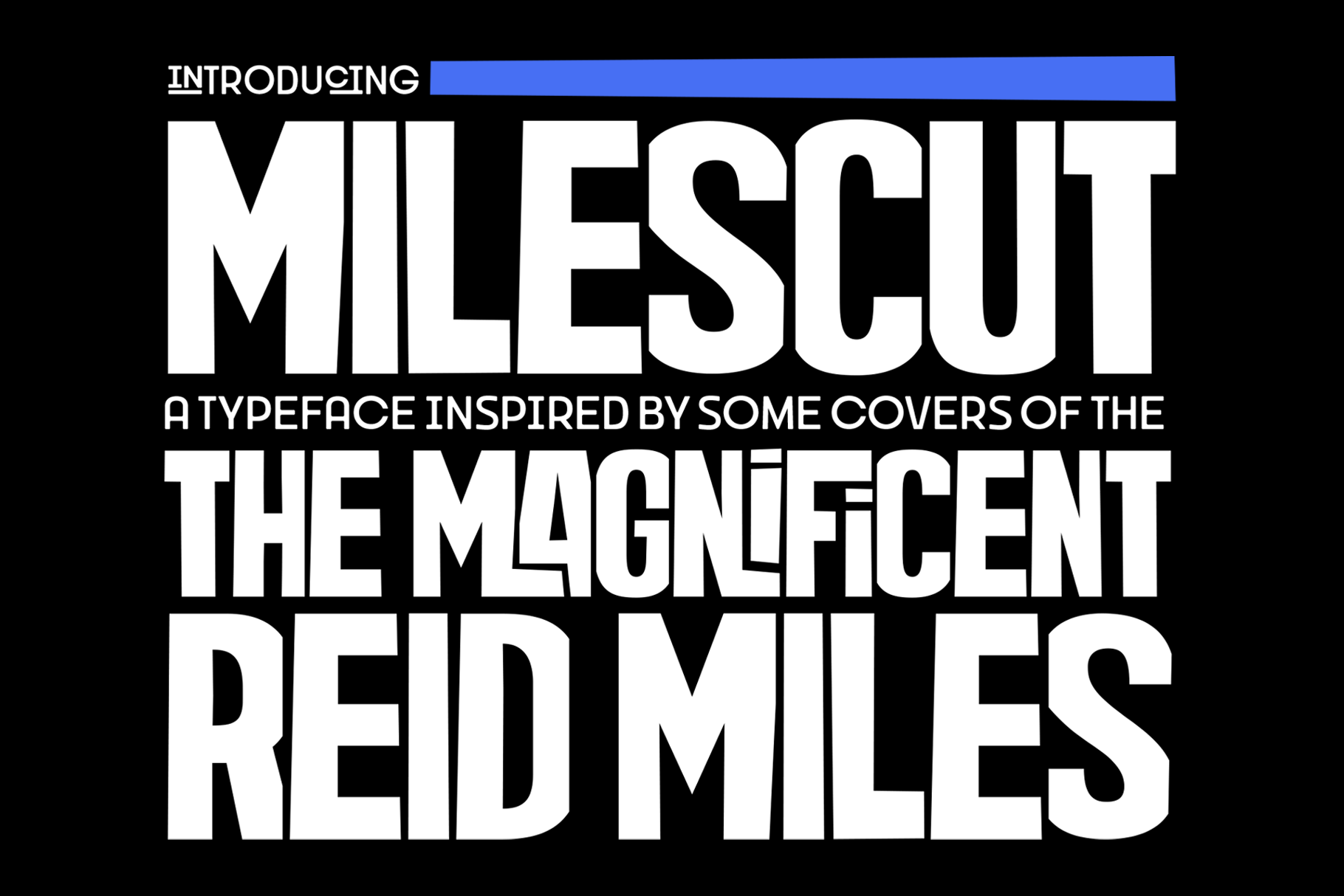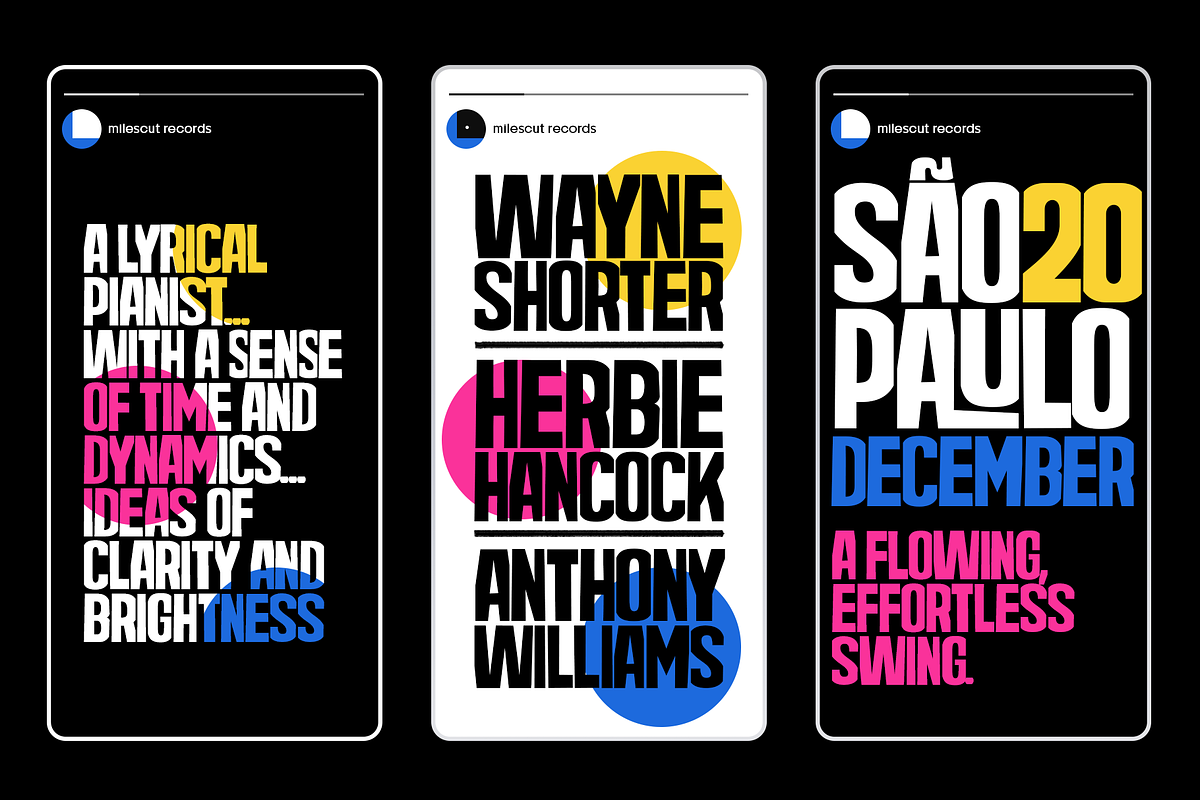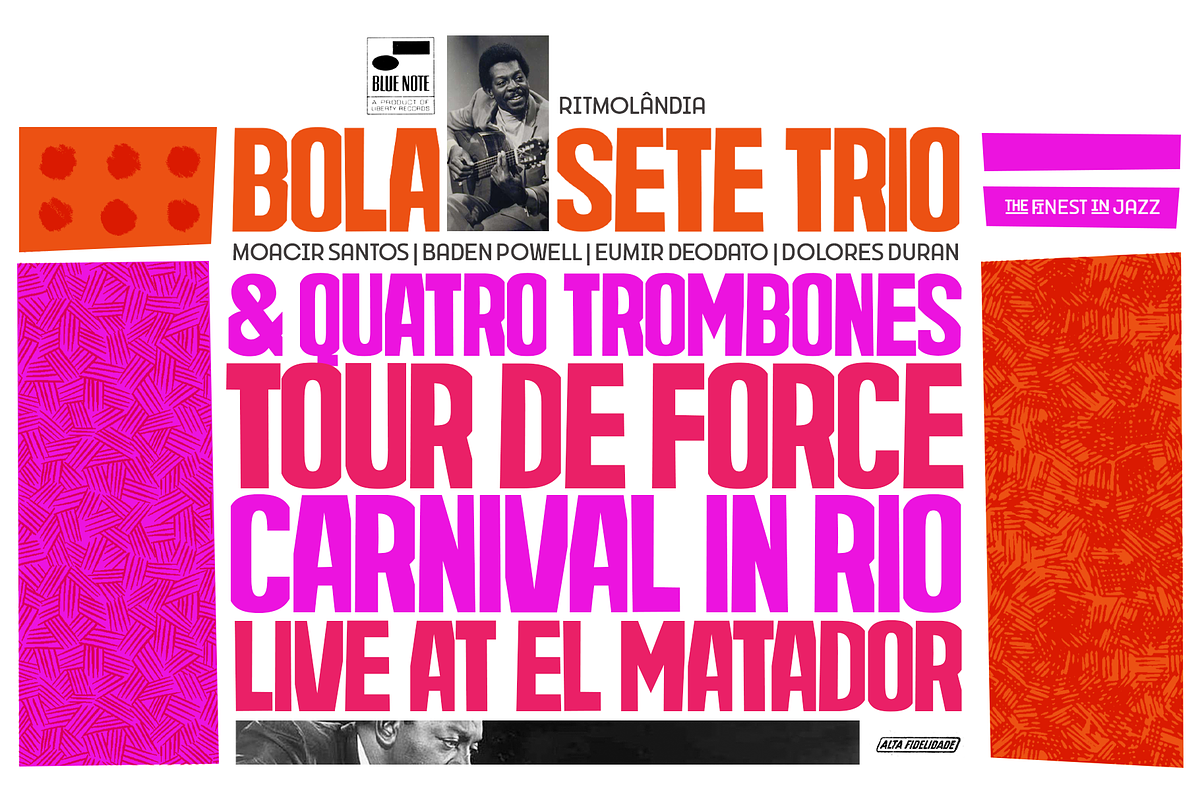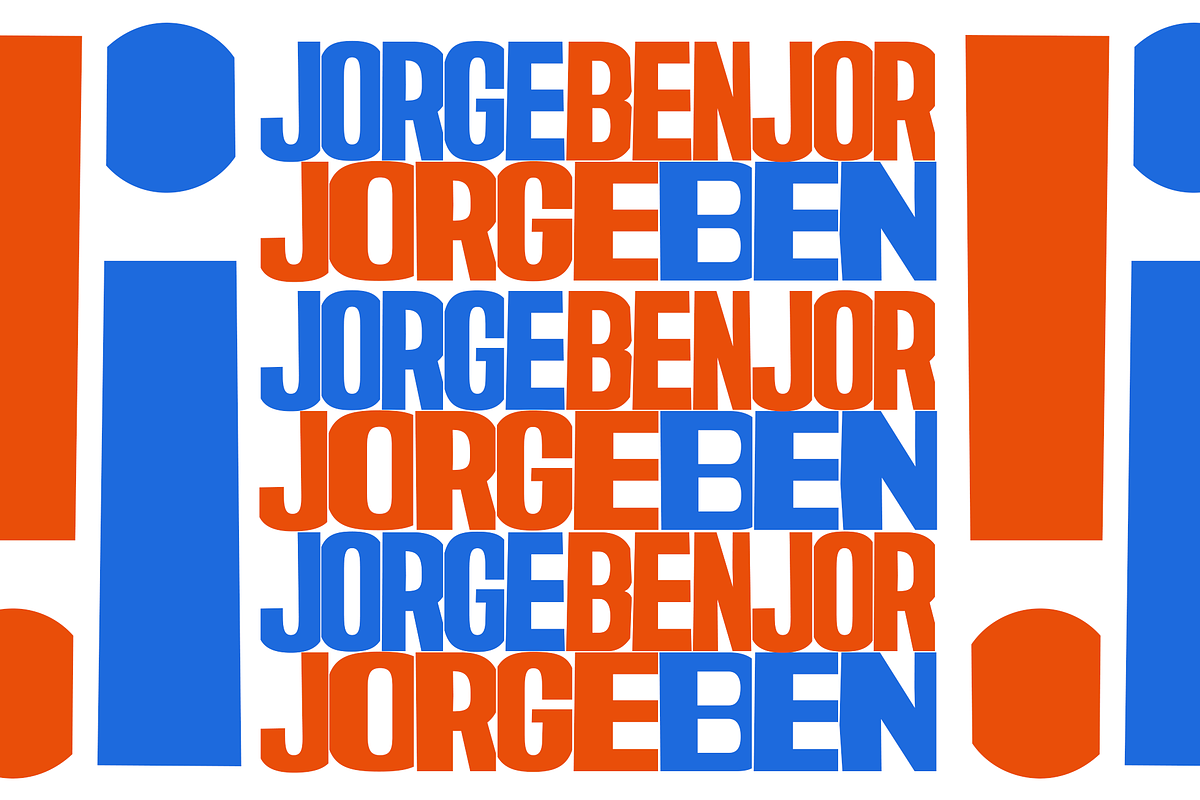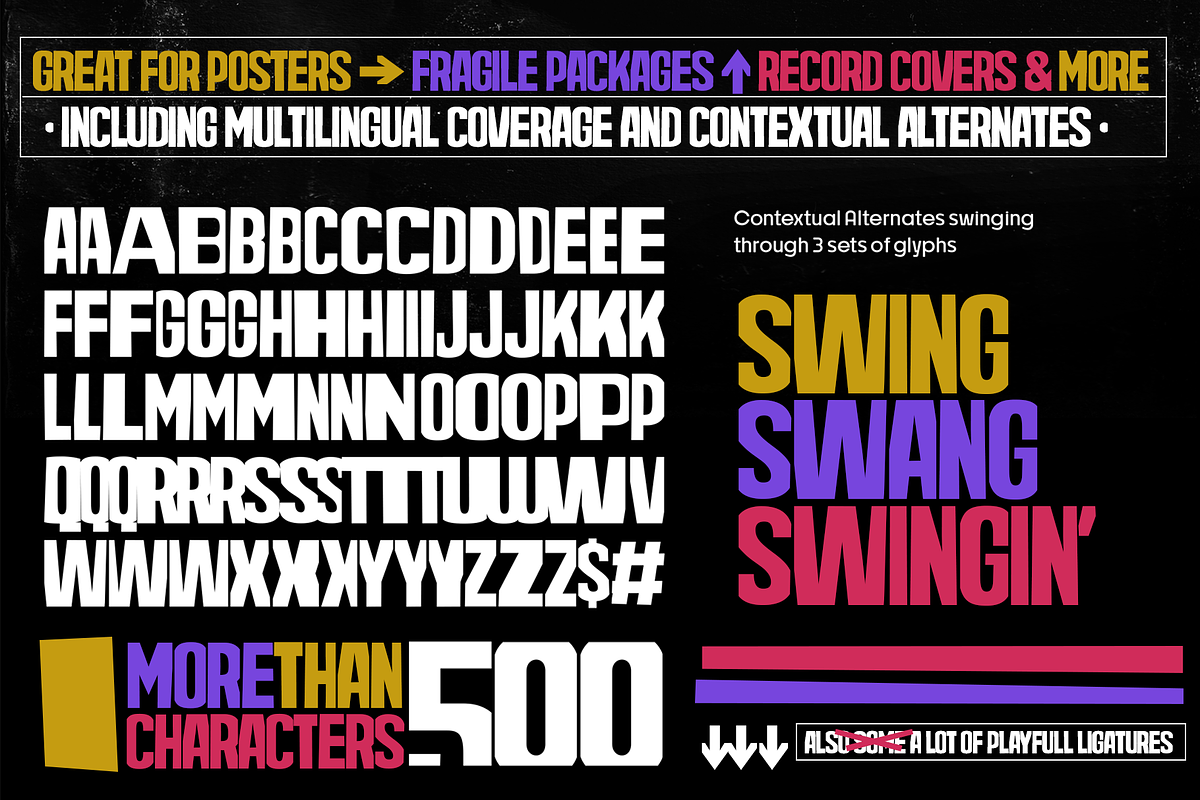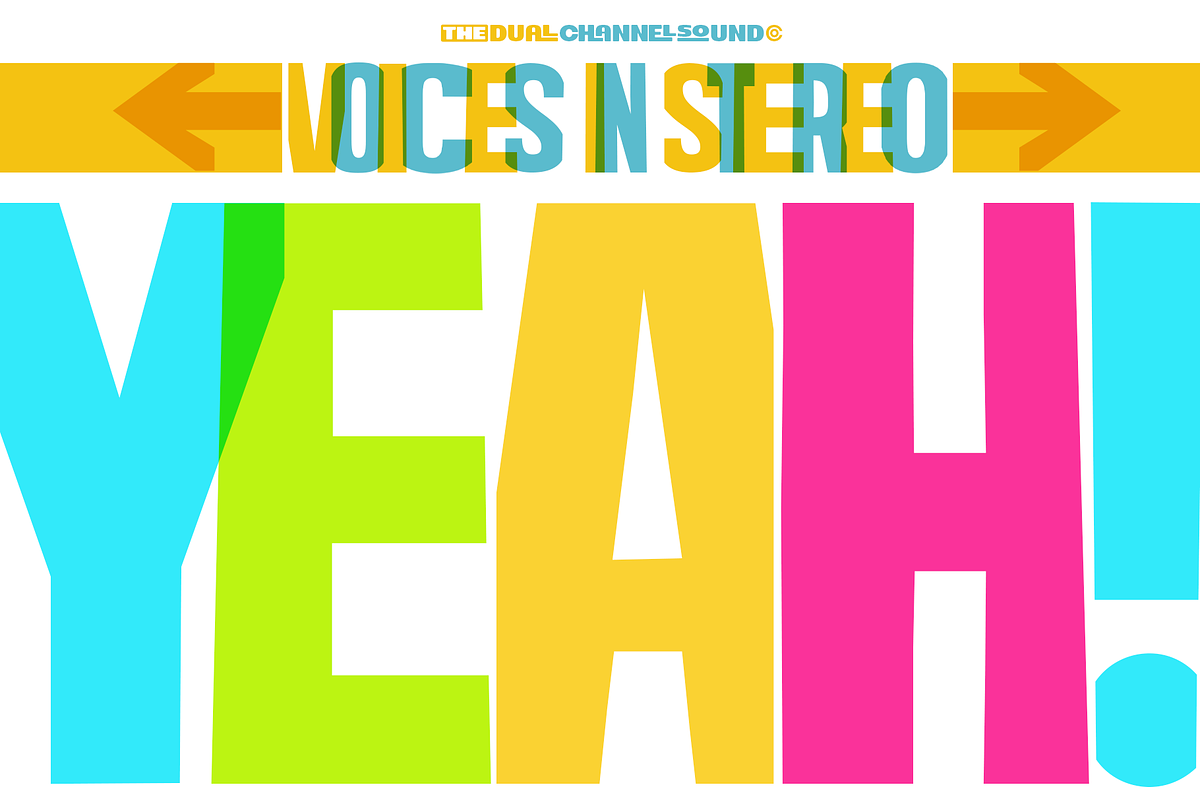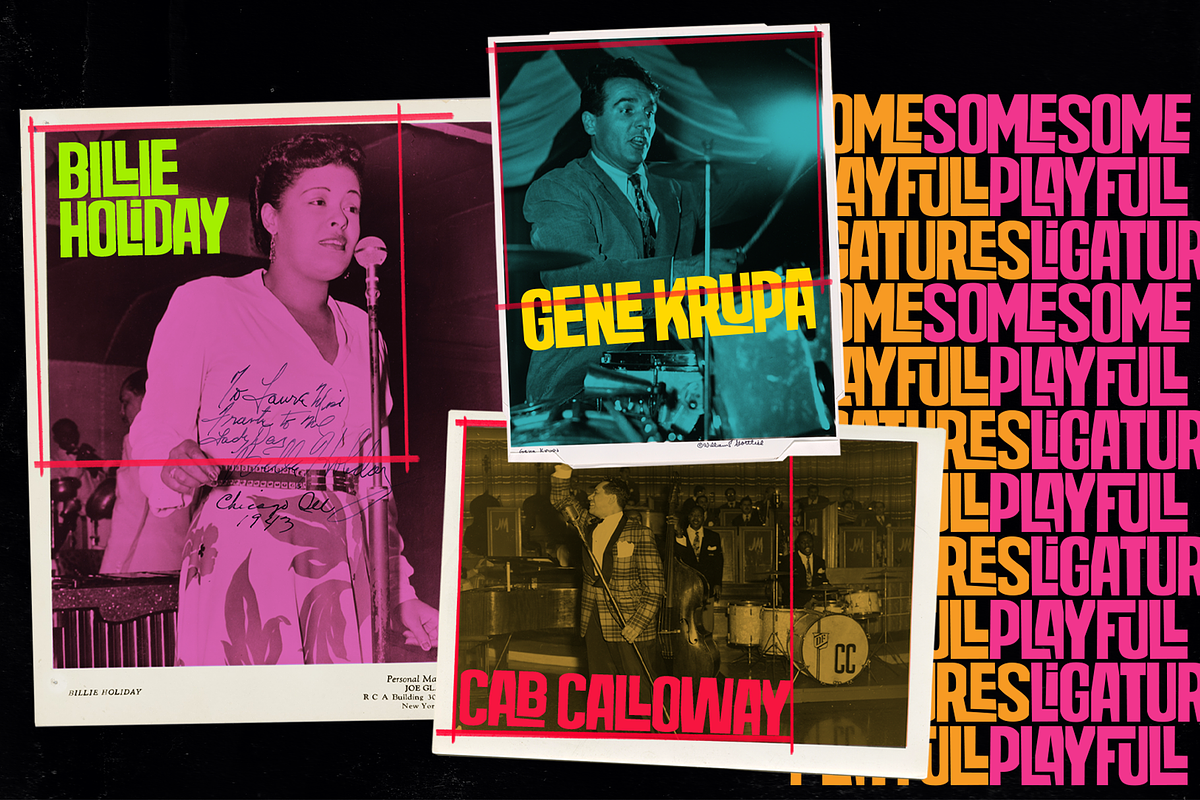
Milescut Display Font
Milescut is a display typeface inspired by some seminal covers the graphic designer and photographer Reid Miles created for the Blue Note Records between the 1950s and 1960s. Miles made almost 500 covers for Blue Note in this period, including some using the hand-cut technique that consists basically in doing vertical cuts in capital letters and numerals to create a unique style within the universe he created for Blue Note. Milescut is a tribute to this small “cut” 😬 in his trajectory within the greatest record label of all time. This idea came about while I was working on what will become soon a revival of a wood type that I fell in love with when flipping through a Specimen of the MACHINE CUT WOOD TYPE manufactured by The WM. H. Page Wood Type Co.
Milescut has two extra sets of alternates that work cyclically when activated in your OpenType menu and lots of ligatures, pretty cool :)